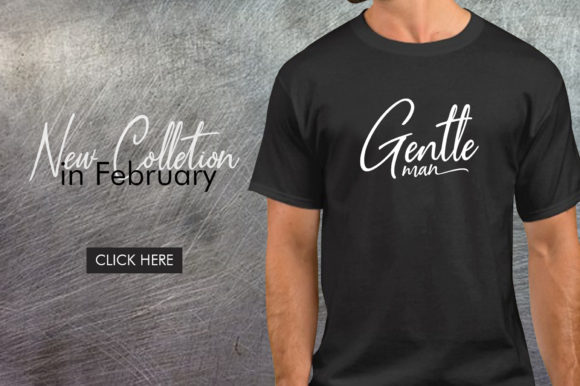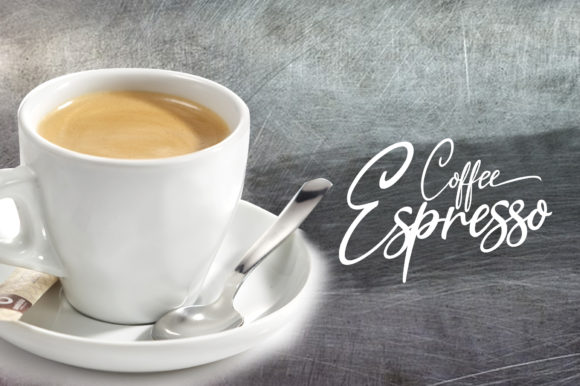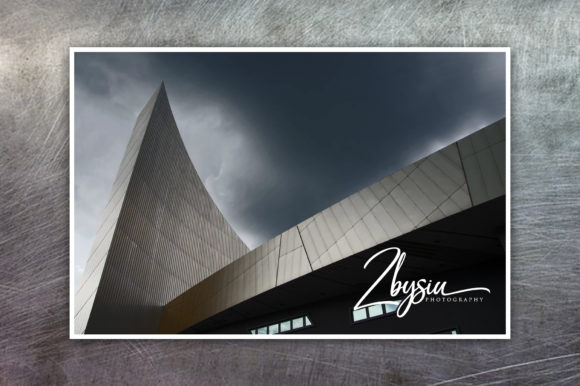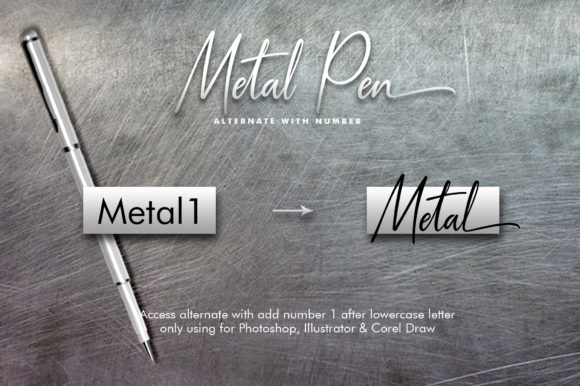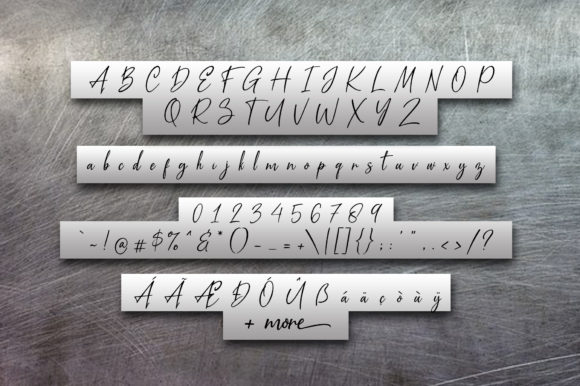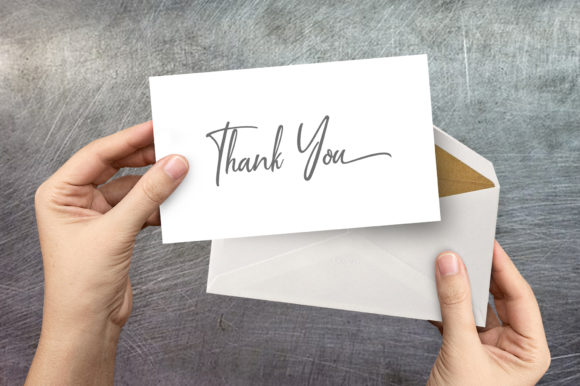
Introduction to Metal Pen Script Font
Have you ever been working on a creative project, pouring your heart and soul into it, and then – BAM! – you find the perfect font to tie everything together? That’s exactly what happened to many designers when they discovered the Metal Pen Script Font.
With its unique blend of fun and sophistication, the Metal Pen Script Font is a game-changer for designers. Plus, it’s incredibly versatile, allowing you to use it with a transparent background or as a high-quality design element. Whether you’re a seasoned pro or just starting out, this font is sure to be a valuable addition to your design arsenal.
Key Features of Metal Pen Script Font
- Unique Hand-Drawn Style: Metal Pen Script Font offers a distinctive, hand-drawn aesthetic perfect for creative projects requiring a personal touch.
- High-Quality Design Resource: This font is designed with high-quality standards in mind, making it an excellent choice for professional designers and artists.
- Large Character Set: This font includes a large character set, covering a wide range of languages and characters, making it suitable for diverse creative projects.
Honest Review: Metal Pen Script Font
- ✨ Unique, hand-crafted feel that adds a touch of elegance to any design.
- ✨ Perfect for adding a personal touch to invitations, wedding stationery, or any other special occasion.
One of the things that really stood out to me about this font is its high quality and versatility. The transparent background option allows for seamless integration with any background image or color, giving you complete control over the design.
- ⚠️ Limited character set, which may be a challenge for designers who need to typeset large amounts of text.
- ⚠️ May not be suitable for large-scale commercial projects due to its unique, hand-crafted nature.
Overall, I’m impressed with the Metal Pen Script Font and would highly recommend it to designers who are looking for a high-quality, unique font to add some personality to their creative projects.
Designing with Metal Pen Script Font
Metal Pen Script Font is a versatile design resource that can elevate your creative project with its high quality, handwritten aesthetic. To use it effectively, follow these steps:
Getting the Most Out of Metal Pen Script Font
To get the most out of Metal Pen Script Font, consider the following tips:
- Use a transparent background to create a more subtle look.
- Pair Metal Pen Script Font with other high-quality fonts for a unique design combination.
- Experiment with different font sizes and colors to achieve the desired effect.
Metal Pen Script Font is ideal for:
- Branding and logo design.
- Quotes and typography-based art.